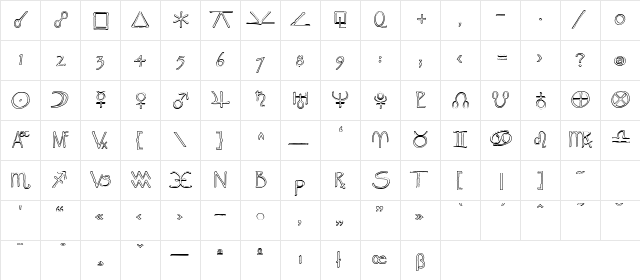
Widget Outline
| Designer | Jason Davies |
Design Context for Widget Typeface
Widget is built around its visual character rather than neutral utility — its distinctive forms are designed to make an impression at display sizes.
Font Pairing: Pair with a clean neutral sans-serif for body copy to let Widget's character lead without overwhelming the composition.
Pro Tip: Treat Widget as the centrepiece of your typographic hierarchy. One strong heading set in a decorative face can carry an entire layout.